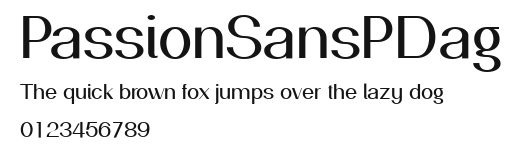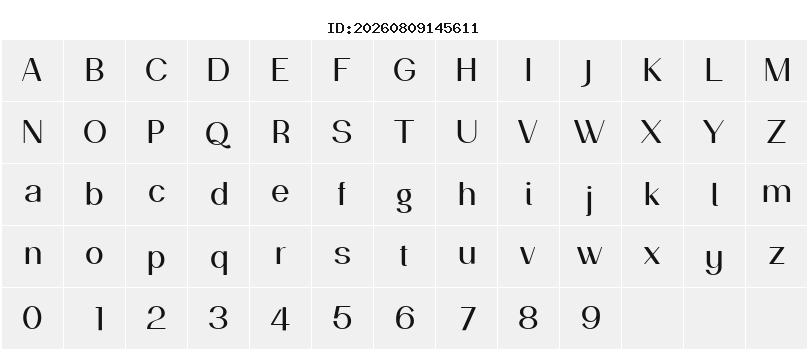
• Font Name: PassionSansPDag
• Manufacturer: Prescott Design
About PassionSansPDag.ttf
PassionSansPDag.ttf is a modern, elegant sans-serif font designed for ultimate readability and visual harmony. Perfect for branding, headlines, web design, and print materials.